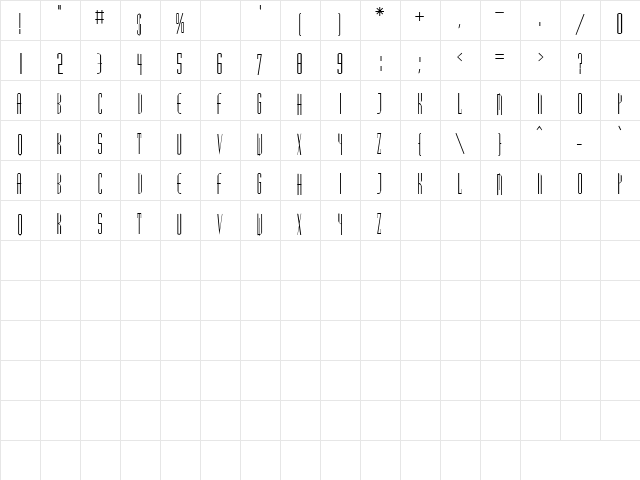
Joe 18 Regular
Design Context for Joe 18 Typeface
Joe 18 offers clean, dependable letterforms without strong stylistic allegiance, making it a practical choice for designers who need flexibility.